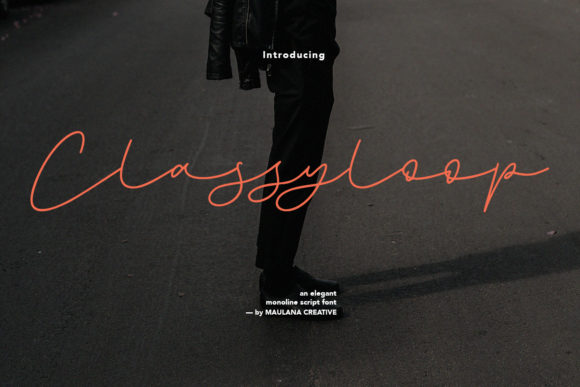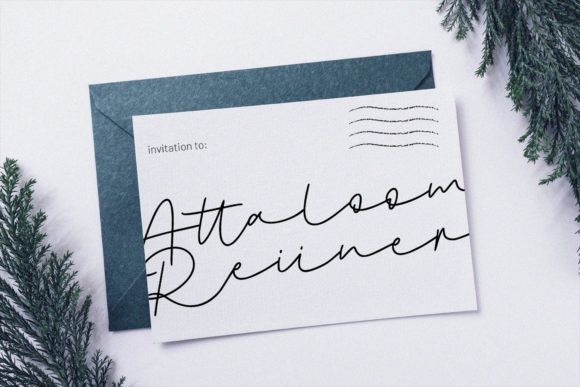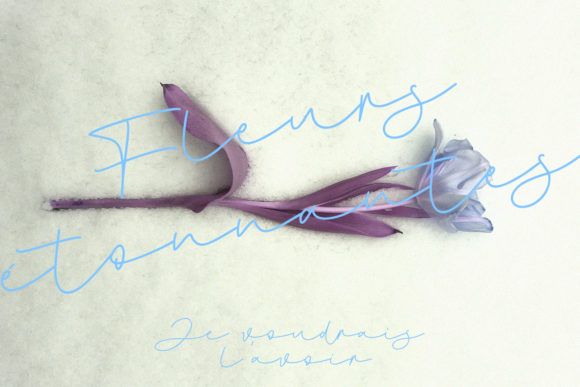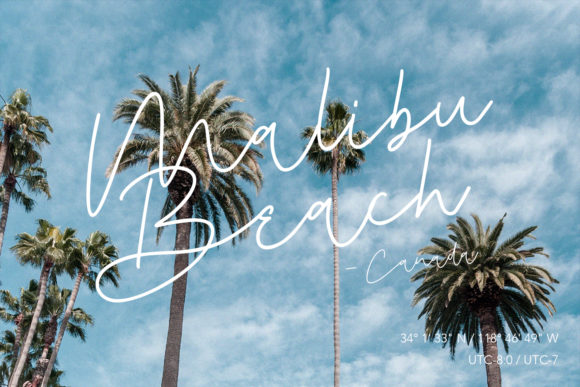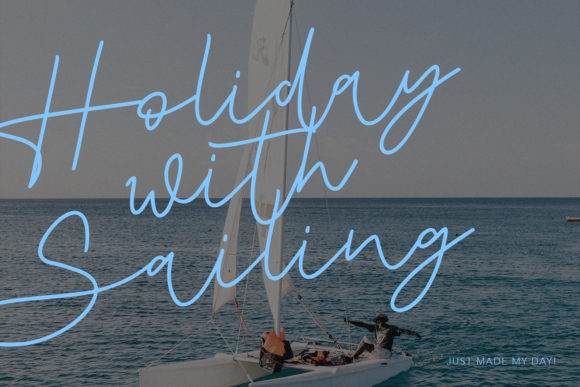
About Classyloop Font
Classyloop is a stylish, cursive and delicate script font. It has a clean, thin and smooth vibe and it will be a hit for any design that you want to add it to.